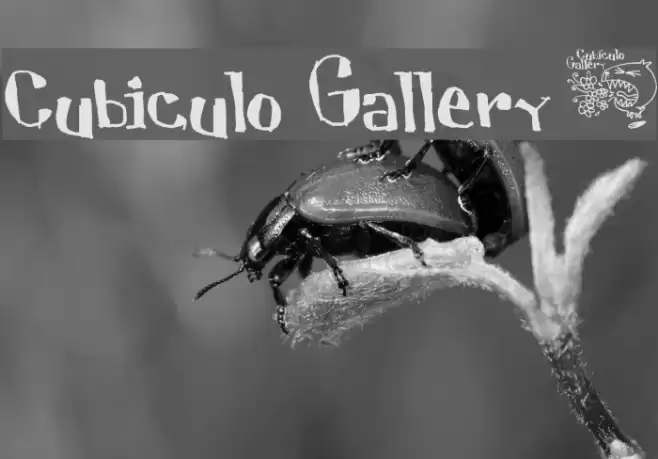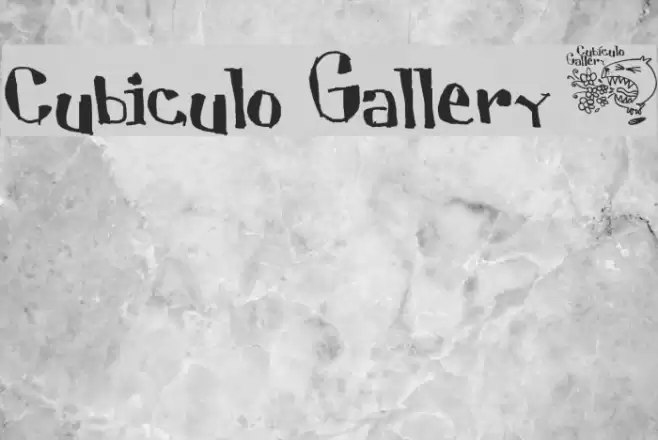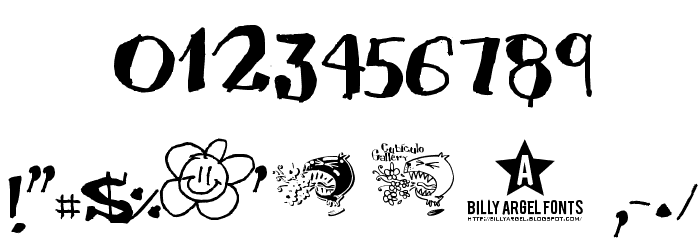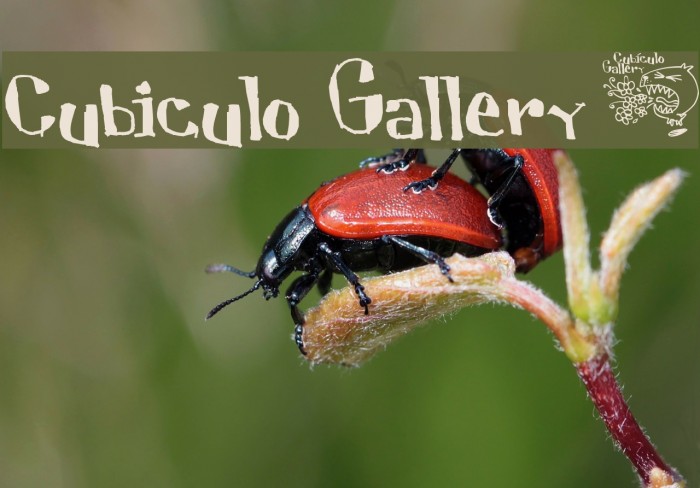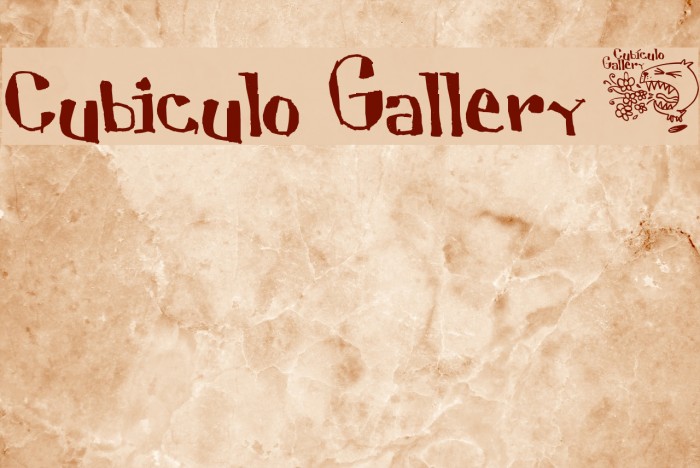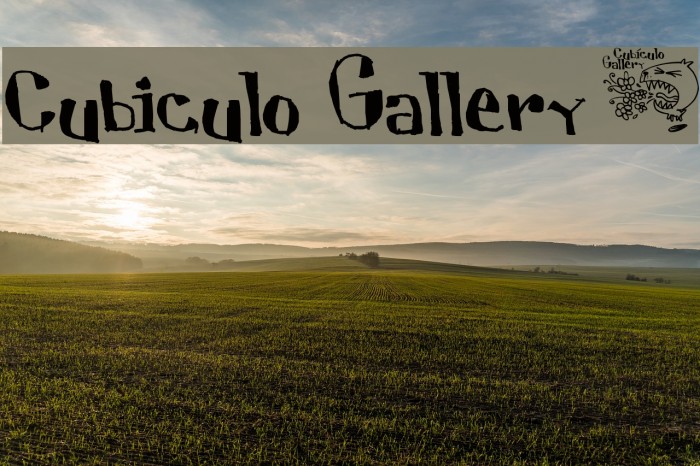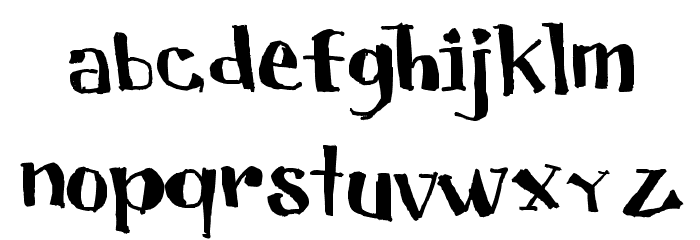
This font features a playful and artistic style, characterized by its irregular and whimsical letterforms. The uppercase letters exhibit a bold, hand-drawn appearance with varying stroke widths, giving them a dynamic and energetic feel. The lowercase letters maintain this playful aesthetic, with some characters having unique flourishes and curves. Numbers are similarly styled, adding to the overall cohesive look. Special characters are creatively designed, enhancing the font's artistic appeal. This font is ideal for projects that require a fun and informal touch, such as children's book covers, creative posters, or unique branding materials.
A playful, hand-drawn font with whimsical and irregular letterforms from Cartoon fonts.
- Proposed Projects: Children's book covers, creative posters, unique branding materials, artistic invitations.
- Overall Style: Artistic, Playful